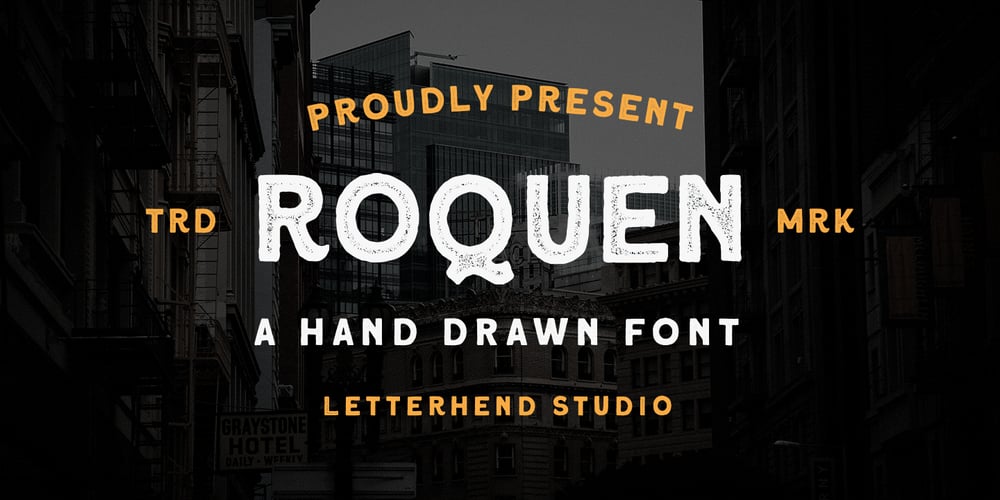
Roquen Font Family was designed by Hendry Juanda and published by Letterhend. Roquen contains 2 styles and family package options. Meet Roquen, a display typeface, hand drawn! Bold, stands out, with a rustic and nostalgic look! Works perfectly for headline, logotype, apparel, invitations, branding, packaging, advertising, and more. This typeface is comes in uppercase, lowercase, punctuation, symbols, numerals, stylistic set alternate, ligatures, and also has multi-lingual support. We hope you enjoy Roquen. Please feel free to comment if you have any thoughts or feedback. Or simply send me a PM or email me at letterhend@gmail.com